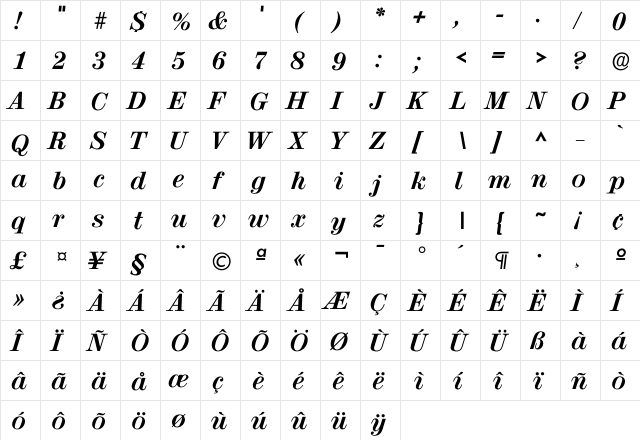
Ivalencia Bold
Design Context for Ivalencia Typeface
Ivalencia is a composed and adaptable typeface that performs quietly and consistently across a wide range of design contexts. The heavy weight commands attention and anchors typographic hierarchies.